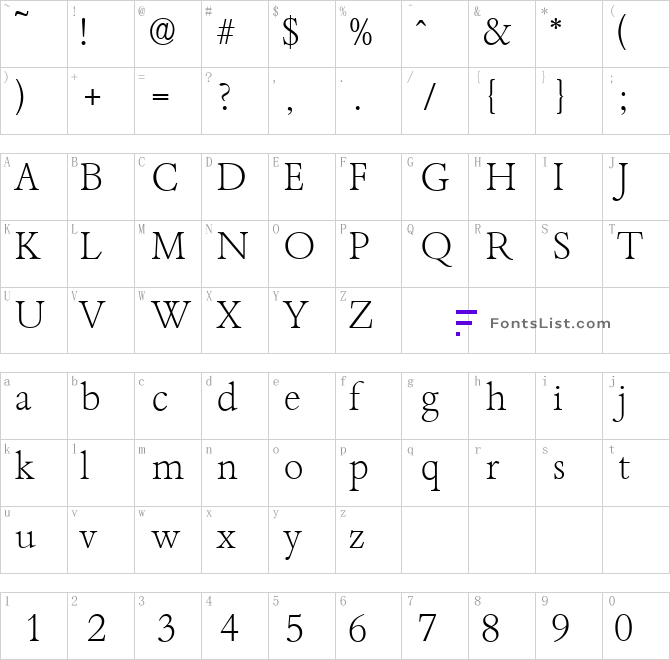
BambergSerial-Xlight-Regular.ttf is a very beautiful artistic font, BambergSerial-Xlight-Regular.ttf is widely used in the design and printing of various books and pictures,BambergSerial-Xlight-Regular.ttf has a strong visual impact,BambergSerial-Xlight-Regular.ttf is a commonly used font in newspapers, magazines and books, and is used in posters, e-commerce Poster design, store design, logo design, font design and other fields.BambergSerial-Xlight-Regular.